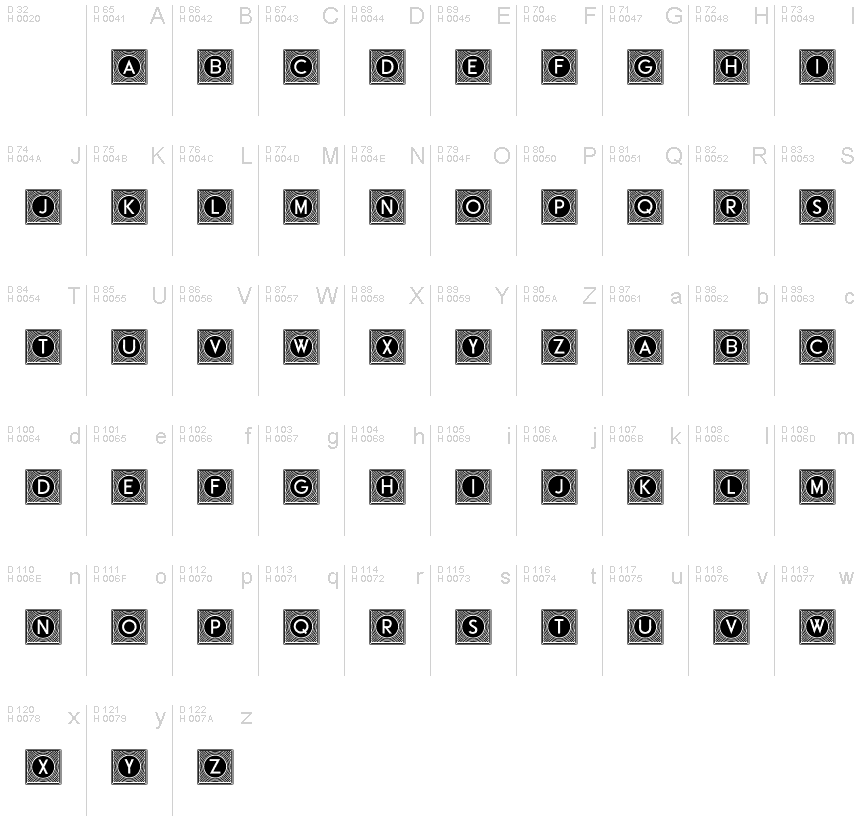
Official Capitals Negative Regular
Official Capitals Negative is a mesmerizing display font from the renowned designer, Vladimir Nikolic. With its decorative style and semi-light weight, this font adds a touch of elegance and uniqueness to any project. Its refined design makes it perfect for creating eye-catching logos, luxurious branding materials, and captivating headlines. The Official Capitals Negative font is also suitable for designing striking invitations, sophisticated packaging designs, and visually stunning posters. Elevate your projects with this font that effortlessly combines artistry with functionality.
It comes in Regular, Black and Negative version!